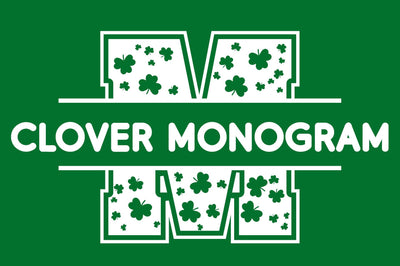
Clover Monogram - Saint Patrick's Day Font
Clover Split Monogram - Saint Patrick's Day Font.
Create gorgeous and timeless designs with Clover Monogram, an interesting and unique decorative font.
Fall in love with its incredibly stylish look and use it for logos, quotes, invitations, business cards, power point presentations, and more!